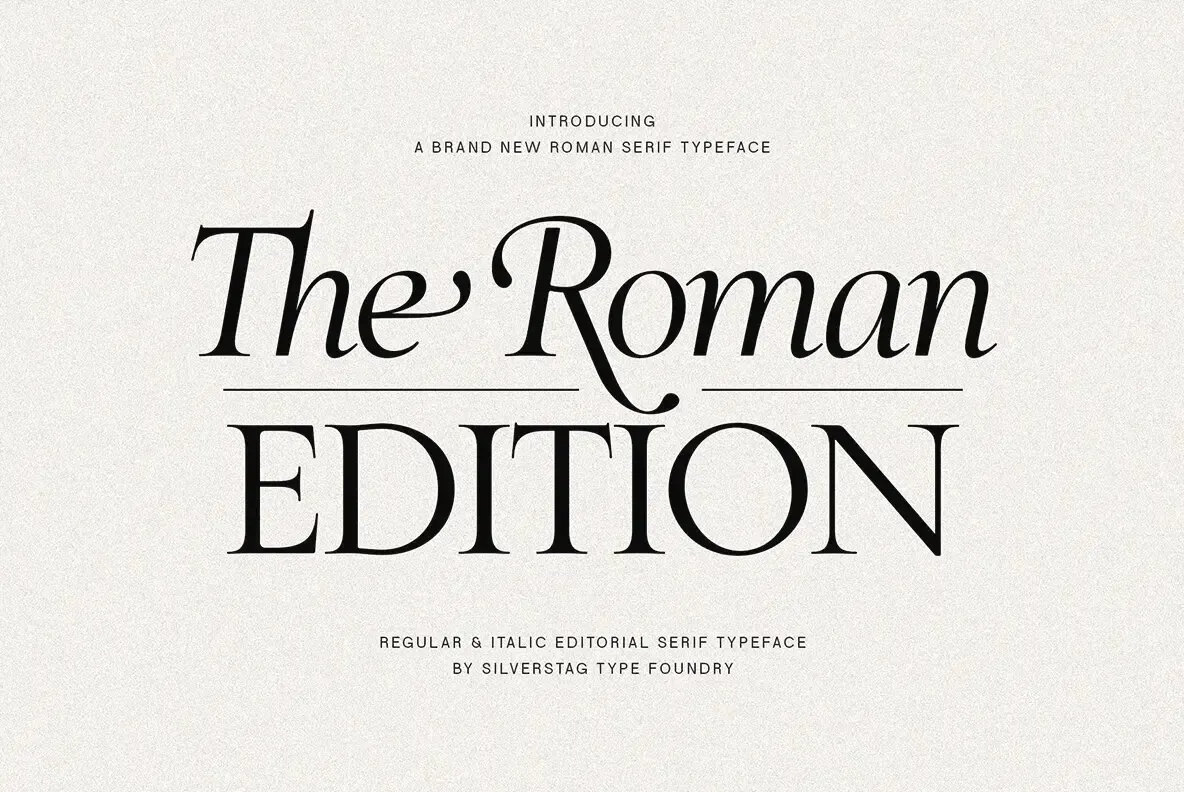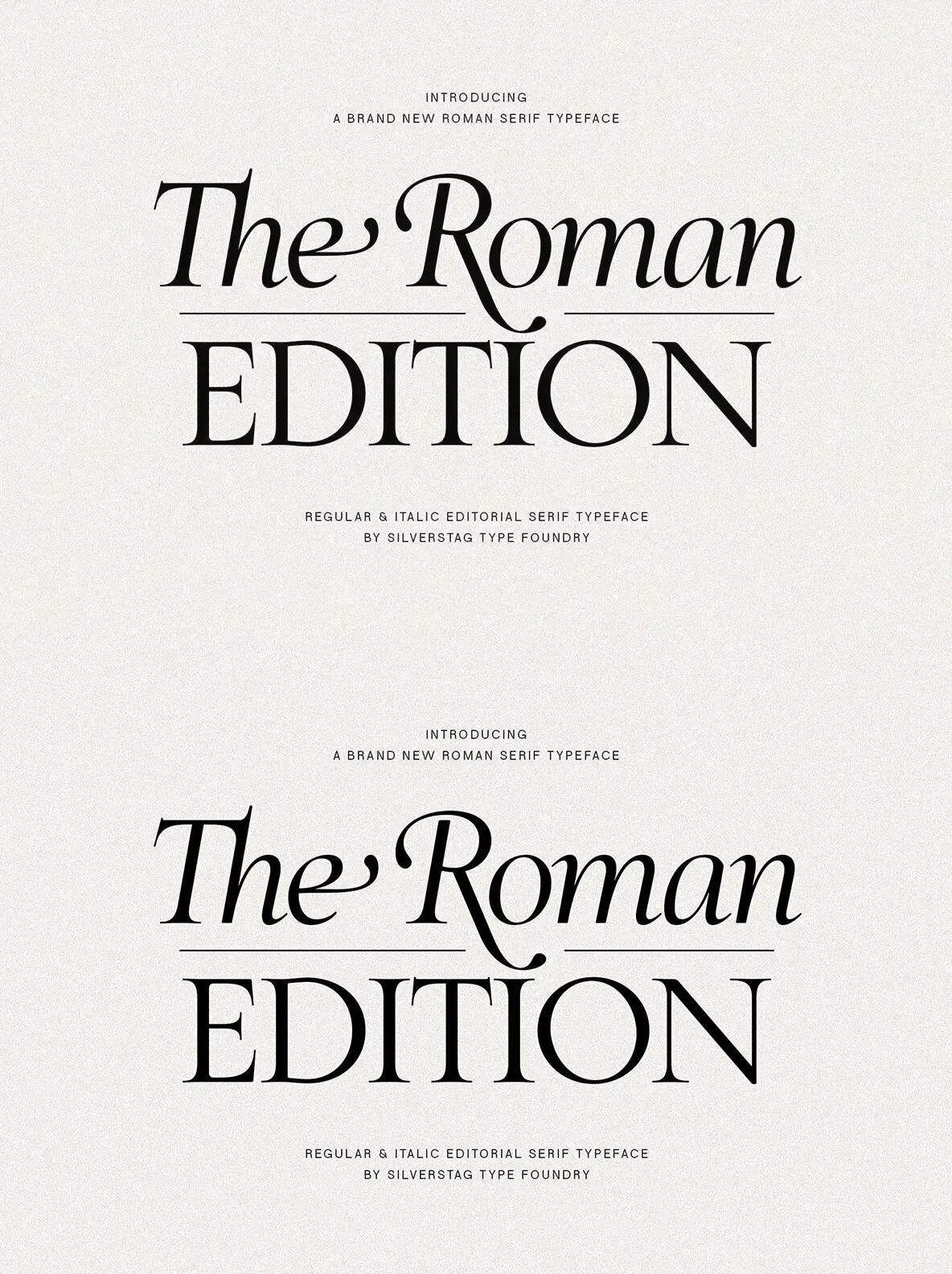
SLTF The Roman Edition — Roman Roots, Modern Presence
SLTF The Roman Edition brings the heritage of classical Roman letterforms into contemporary typography. This luxurious serif font suits high-end branding, editorial design, luxury packaging, and sophisticated creative projects. Its proportions feel deliberate, with delicate serifs and a composed, prestigious tone that reads as cultured and carefully made.
Use it for magazine layouts, heritage-led brand identities, or timeless wedding invitations. The Roman Edition keeps your typography graceful and visually balanced, whether you need refined long-form text or high-impact headlines. It’s designed for creators and brands that value tradition, clarity, and typographic craftsmanship across both print and digital work.
Available Styles
Regular – A crisp, poised serif that speaks with clarity, confidence, and timeless elegance. Perfect for magazine headlines, book titles, premium product branding, and corporate identity.
Italic – A refined counterpart to the Regular style, featuring graceful swashes, ornate flourishes, and calligraphic endings. Designed for editorial highlights, invitations, luxury fashion campaigns, and artistic branding.
Powerful Features for Elevated Design
Over 50 Ligatures & Alternates – Carefully crafted to create natural letter connections, offering a seamless handwritten effect with sophisticated typographic nuances.
Editorial-Ready Aesthetic – Designed with luxury magazines, fine art publications, and book covers in mind, making it ideal for long-form text layouts and high-impact headlines.
Flawless Optical Balance – Every character has been drawn to maintain visual consistency, ensuring perfect readability and elegance at any scale.
Multi-Language Support – Covering over 90 languages, The Roman Edition is crafted to meet the needs of a global audience.
Luxury Meets Functionality – Whether in fashion branding, bespoke packaging, or advertising, this font captures the essence of high-end design.
Perfect for a Wide Range of Applications
Branding & Identity Make an unforgettable impression with branding that exudes legacy and craftsmanship. Ideal for fashion houses, perfumeries, jewelry brands, and premium product packaging.
Editorial & Publishing Elevate your magazine layouts, book covers, newspaper mastheads, and online publications with a typeface that speaks the language of tradition and refinement.
Luxury Packaging & Invitations For wedding invitations, bespoke stationery, wine labels, and beauty product packaging, The Roman Edition enhances designs with an air of exclusivity and grace.
Web & Digital Design From website headlines to social media graphics, this typeface delivers timeless appeal while ensuring readability and impact on modern digital platforms.